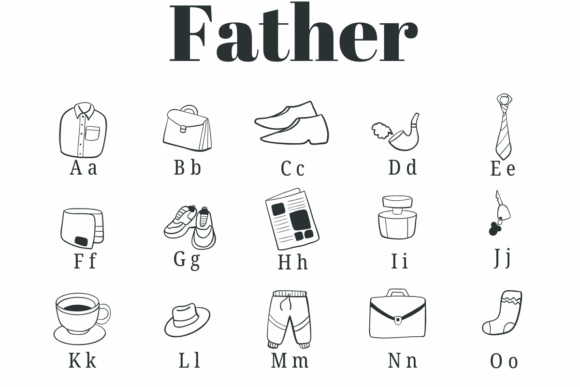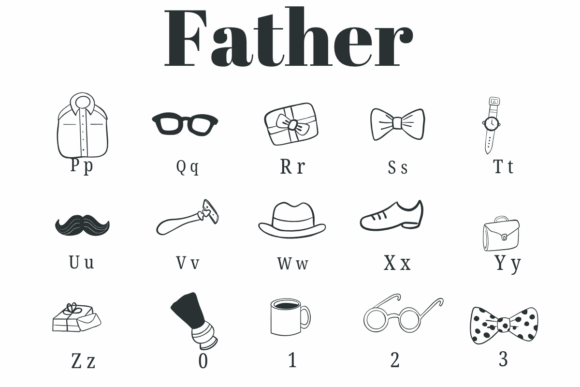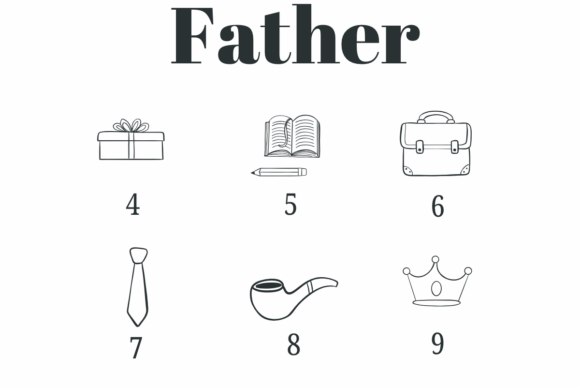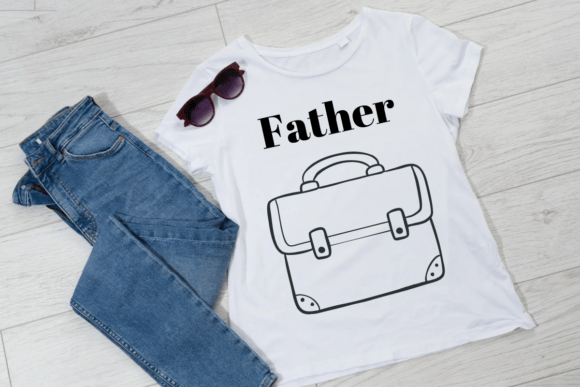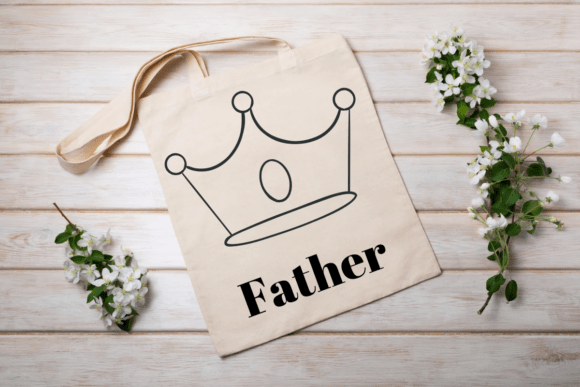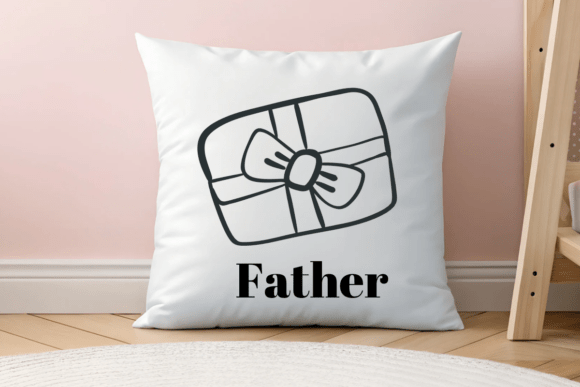
Introducing Father Font: The Perfect Addition to Your Creative Projects
Are you a designer or crafter looking for a unique and creative font to enhance your projects? Look no further than Father Font, a dingbats font with a charming sketch style that’s perfect for a variety of applications. In this article, we’ll explore the features and benefits of Father Font, and show you how it can elevate your creative projects.
What is Father Font?
Father Font is a dingbats font that features a delightful sketch style, reminiscent of hand-drawn illustrations. The font is designed to add a personal touch to your projects, making it ideal for creative endeavors such as wedding invitations, DIY crafts, decorations, and Father’s Day cards. With its unique and charming style, Father Font is sure to make your projects stand out.
Features of Father Font
Father Font boasts a range of features that make it an excellent choice for designers and crafters. Some of its key features include:
- Sketch style: Father Font’s sketch style gives it a charming, hand-drawn feel that’s perfect for adding a personal touch to your projects.
- Dingbats design: As a dingbats font, Father Font features a range of illustrations and symbols that can be used to enhance your projects.
- Versatile: Father Font can be used for a wide range of applications, from wedding invitations to DIY crafts, decorations, and more.
Uses for Father Font
Father Font is an incredibly versatile font that can be used for a variety of creative projects. Here are some ideas to get you started:
- Wedding invitations: Add a personal touch to your wedding invitations with Father Font’s charming sketch style.
- DIY crafts: Use Father Font to create unique and personalized DIY crafts, such as handmade cards and gift tags.
- Decorations: Add a touch of personality to your decorations with Father Font’s illustrations and symbols.
- Father’s Day cards: Create special Father’s Day cards with Father Font’s unique and charming style.
- Logos: Use Father Font to create custom logos for your business or personal brand.
Benefits of Using Father Font
There are many benefits to using Father Font in your creative projects. Some of the advantages of this font include:
- Unique style: Father Font’s sketch style sets it apart from other fonts, making it a great choice for designers and crafters looking for something different.
- Easily readable: Despite its sketch style, Father Font is easily readable, making it perfect for use in a variety of applications.
- Customizable: Father Font can be customized to fit your specific needs, allowing you to create unique and personalized projects.
Tips for Using Father Font
Here are some tips for getting the most out of Father Font:
- Experiment with different sizes: Father Font looks great in a variety of sizes, so don’t be afraid to experiment to find the perfect size for your project.
- Combine with other fonts: Combine Father Font with other fonts to create a unique and visually appealing design.
- Use illustrations and symbols: Take advantage of Father Font’s illustrations and symbols to add a touch of personality to your projects.
Father Font is a unique and versatile font that’s perfect for designers and crafters looking to add a personal touch to their creative projects. With its charming sketch style and range of illustrations and symbols, Father Font is sure to make your projects stand out. Whether you’re creating wedding invitations, DIY crafts, decorations, or Father’s Day cards, Father Font is an excellent choice. So why not give it a try and see the difference it can make in your creative projects?